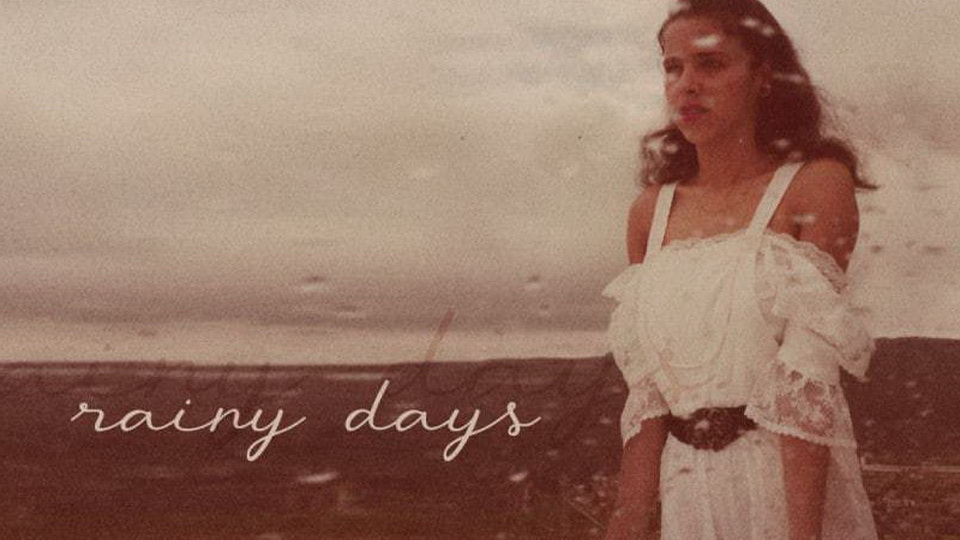
Feb 9, 2025Script & HandwrittenRainy Days Font Rainy Days handwritten font is a script font inspired by old family photos and handwritten letters. Made with love! Font DetailsDesigned by: bruagWebsiteLicense: Free for commercial use Download Rainy Days FontFile size: 33.84 KBCreated: February 16, 2025Updated: February 16, 2025 Download Explore similar fonts Vegan Days Font Days of Charity Font Oldport Script Font Kaflina Oblique Font Casa Lienta Font Western Airo Font # Casual# Cursive# Handwriting